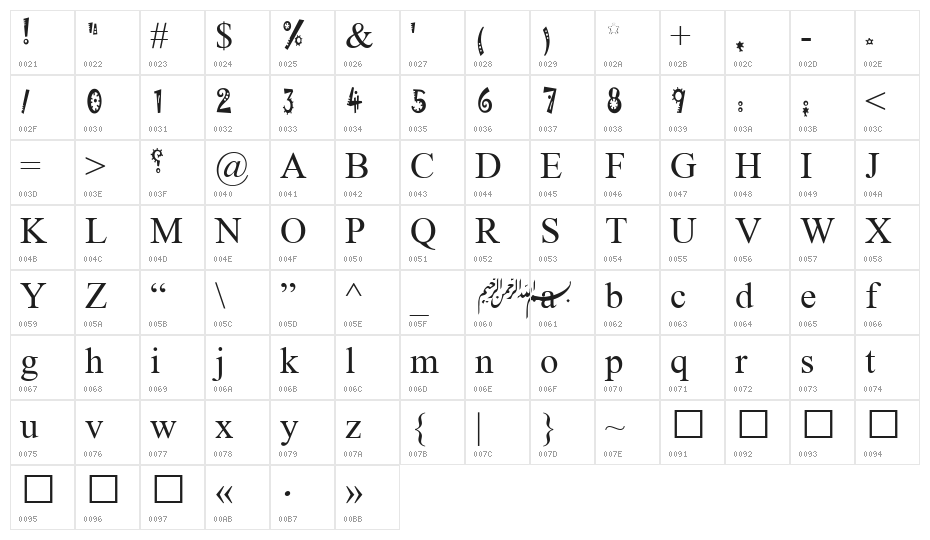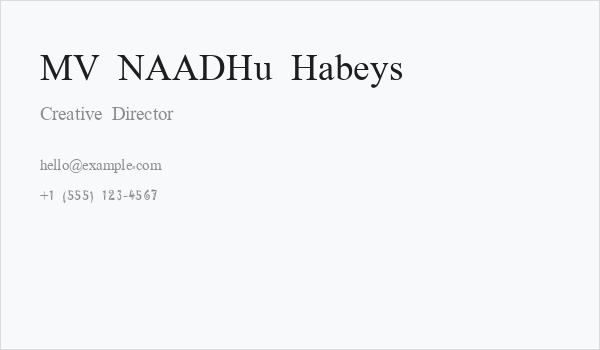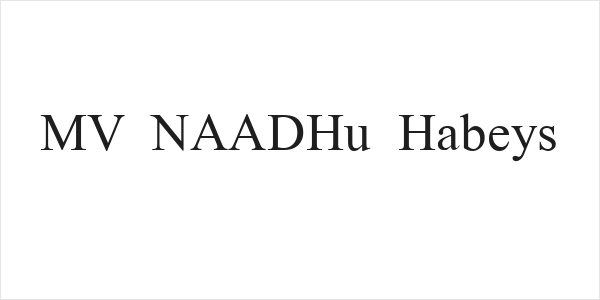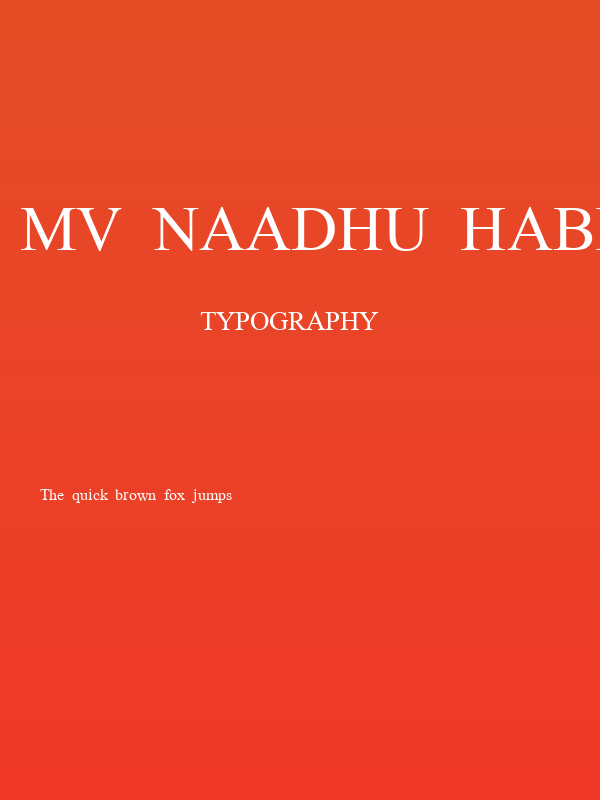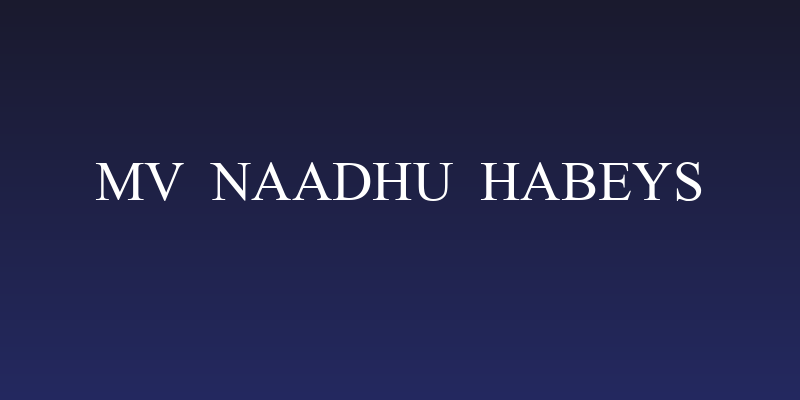
MV NAADHu Habeys Font
MV NAADHu Habeys Description
This font features a classic serif style with a modern twist. The uppercase letters are bold and commanding, while the lowercase letters maintain a traditional elegance. The numerals are particularly distinctive, incorporating unique mechanical elements that give them a steampunk aesthetic. Special characters are creatively designed, adding a playful yet sophisticated touch. The overall appearance is both professional and artistic, making it suitable for a variety of creative projects.
| Use Case | Headlines, Logos, Editorial Design |
| Proposed Projects | Ideal for branding, editorial design, book covers, and creative posters. |